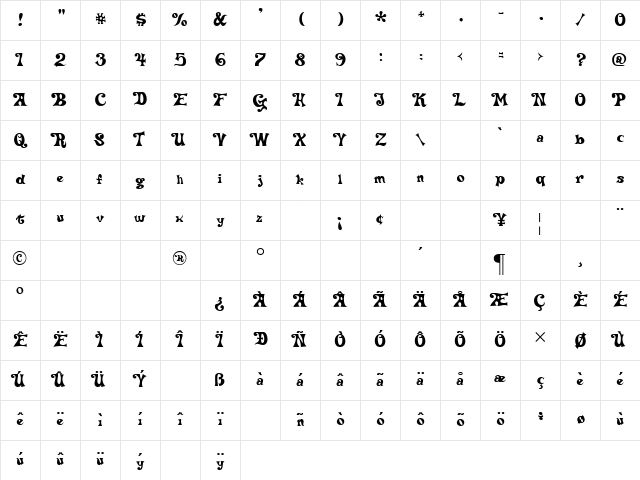
Complete Delta Hey Max Nine Regular glyph index. Displaying only characters natively supported by Delta Hey Max Nine Regular font.
Delta Hey Max Nine is a composed and adaptable typeface that performs quietly and consistently across a wide range of design contexts.